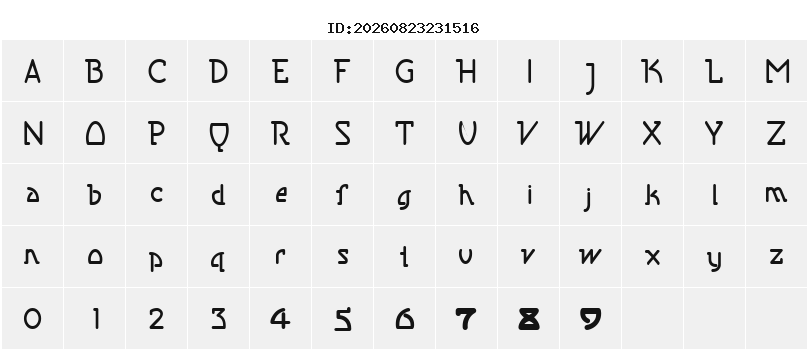
Sanitary Regular.ttf is a modern, elegant sans-serif font designed for ultimate readability and visual harmony. Perfect for branding, headlines, web design, and print materials.